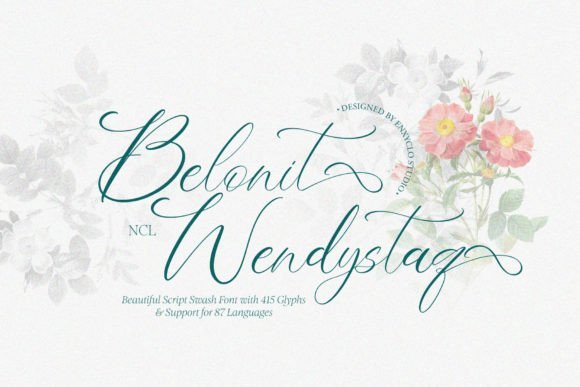
Unlocking Your Creative Potential with Belonit Wendystaq Font
There’s nothing quite like the thrill of seeing a design concept come to life. The moment when all the pieces fall into place, and your vision takes shape – it’s pure magic. But, have you ever struggled to find the perfect font to elevate your creation? That’s where the Belonit Wendystaq Font comes in – a modern elegant script font designed to take your designs to the next level.
This beautifully crafted font is perfect for making a statement, whether it’s for a wedding invitation, a headline, or a billboard. Its versatility and sophistication make it an invaluable asset for any designer’s library. With the Belonit Wendystaq Font, you’ll be able to add a touch of elegance and sophistication to any project, setting it apart from the rest and making it truly unforgettable.
Belonit Wendystaq Font Key Features
- Font Family: Belonit Wendystaq
- Unique Characteristic: This font features a unique blend of modern and vintage elements, making it ideal for creative projects
Belonit Wendystaq Font Review
I recently had the chance to work with the Belonit Wendystaq Font, and I must say it’s an interesting addition to the world of typography. ✨ The font’s unique, hand-crafted feel immediately caught my attention, and I found it to be perfect for projects that require a touch of whimsy and personality.
- ✨ Uniqueness: The Belonit Wendystaq Font is a true original, with a distinctive style that sets it apart from more generic fonts.
- ✨ Expressive: The font’s irregularities and variations give it a dynamic, expressive quality that’s perfect for creative projects.
- ✨ Versatility: Despite its unique style, the font is surprisingly versatile and can be used in a wide range of applications, from headings to body text.
However, I did encounter some limitations ⚠️ while working with the font:
- ⚠️ Readability: At smaller font sizes, the Belonit Wendystaq Font can be difficult to read, particularly in text-heavy blocks.
- ⚠️ Consistency: The font’s irregularities can sometimes make it difficult to achieve a consistent look throughout a project.
Overall, I think the Belonit Wendystaq Font is a great addition to any designer’s toolkit, but it’s not without its limitations. With careful use and a clear understanding of its strengths and weaknesses, it can be a powerful tool for creating unique and engaging designs.
For optimal results, use the Belonit Wendystaq Font in conjunction with a clear and simple design. Avoid using it for large blocks of text, as it can be difficult to read. Use it sparingly to add a touch of elegance and sophistication to your designs.
The Belonit Wendystaq Font is ideal for creating elegant and sophisticated designs, such as:
– Luxury product packaging
– High-end business cards and letterheads
– Fashion and lifestyle branding
Alternatives to Belonit Wendystaq Font
Great Vibes Font is a beautiful, elegant script font that is perfect for adding a touch of sophistication to your designs. It is ideal for use in headings, titles, and quotes. Great Vibes Font is more cursive and has a softer feel compared to Belonit Wendystaq Font, which is more geometric and bold.
Alex Brush Font is a lovely, handwritten font that is great for creating a personal and unique feel in your designs. It is suitable for use in invitations, greeting cards, and other creative projects. Alex Brush Font has a more organic and natural feel compared to Belonit Wendystaq Font, which is more modern and futuristic.
3. Ostrich Sans Font
Ostrich Sans Font is a clean, modern sans-serif font that is perfect for use in body text, headings, and titles. It is ideal for use in corporate designs, magazines, and newspapers. Ostrich Sans Font is more straightforward and minimalistic compared to Belonit Wendystaq Font, which is more decorative and ornate.